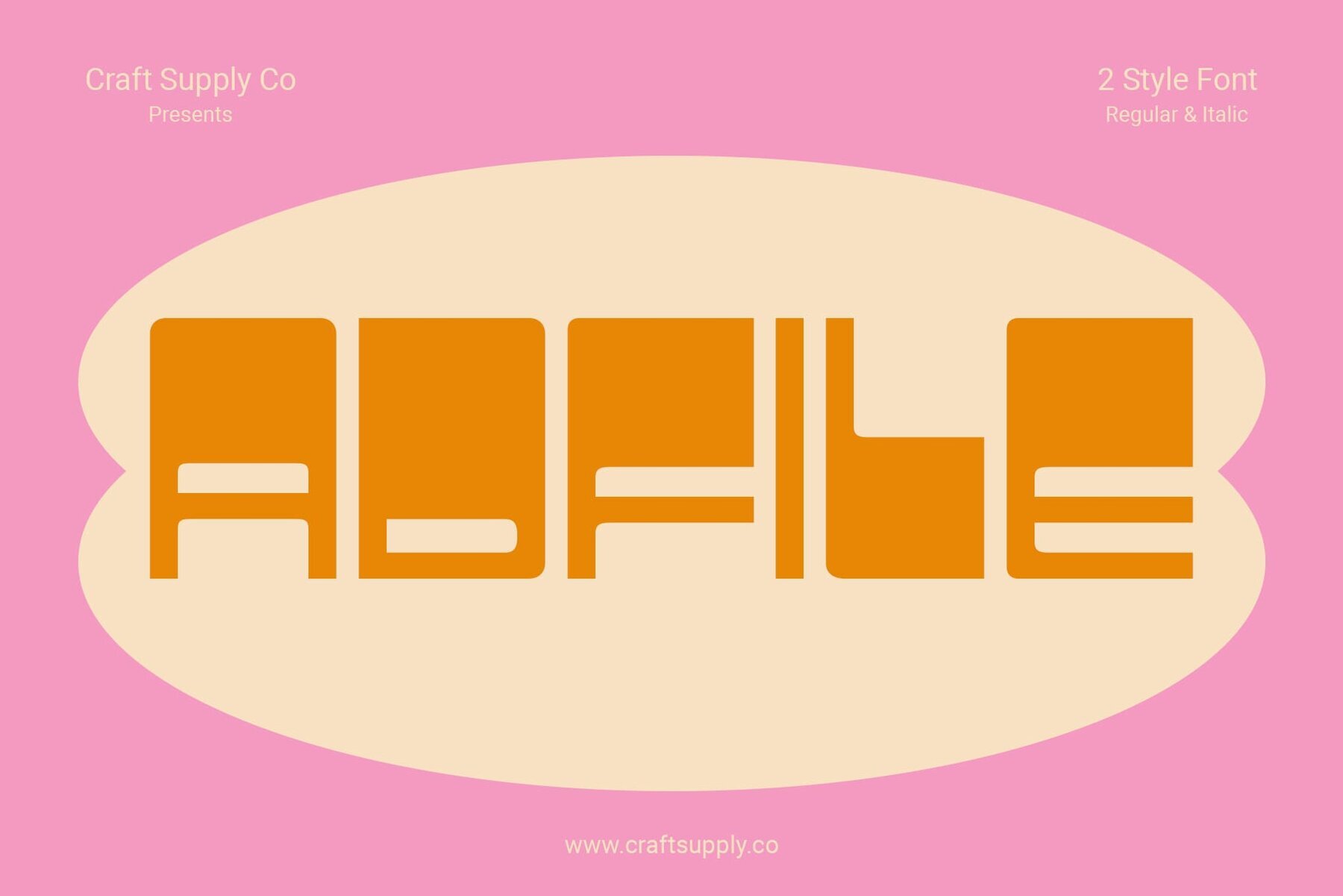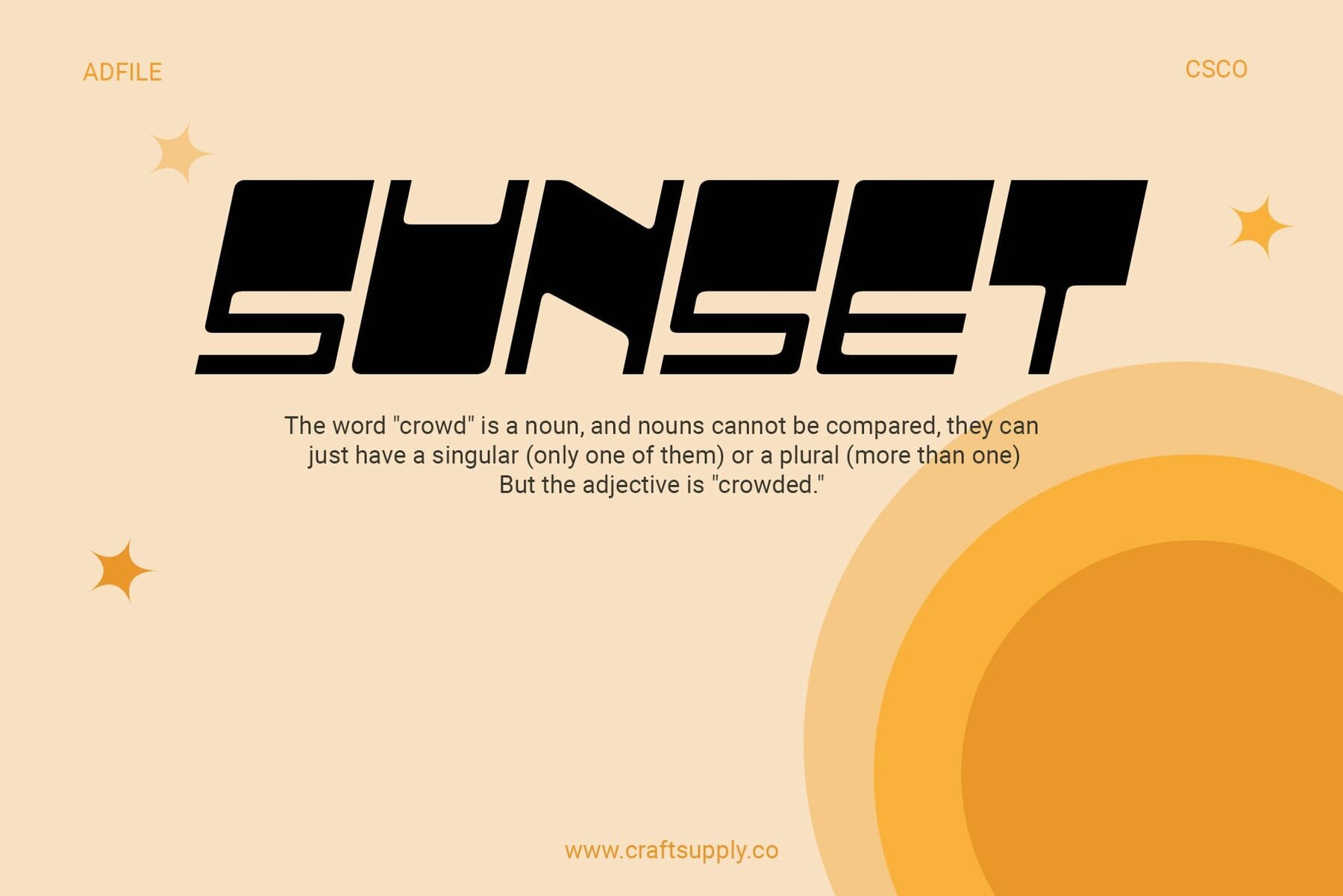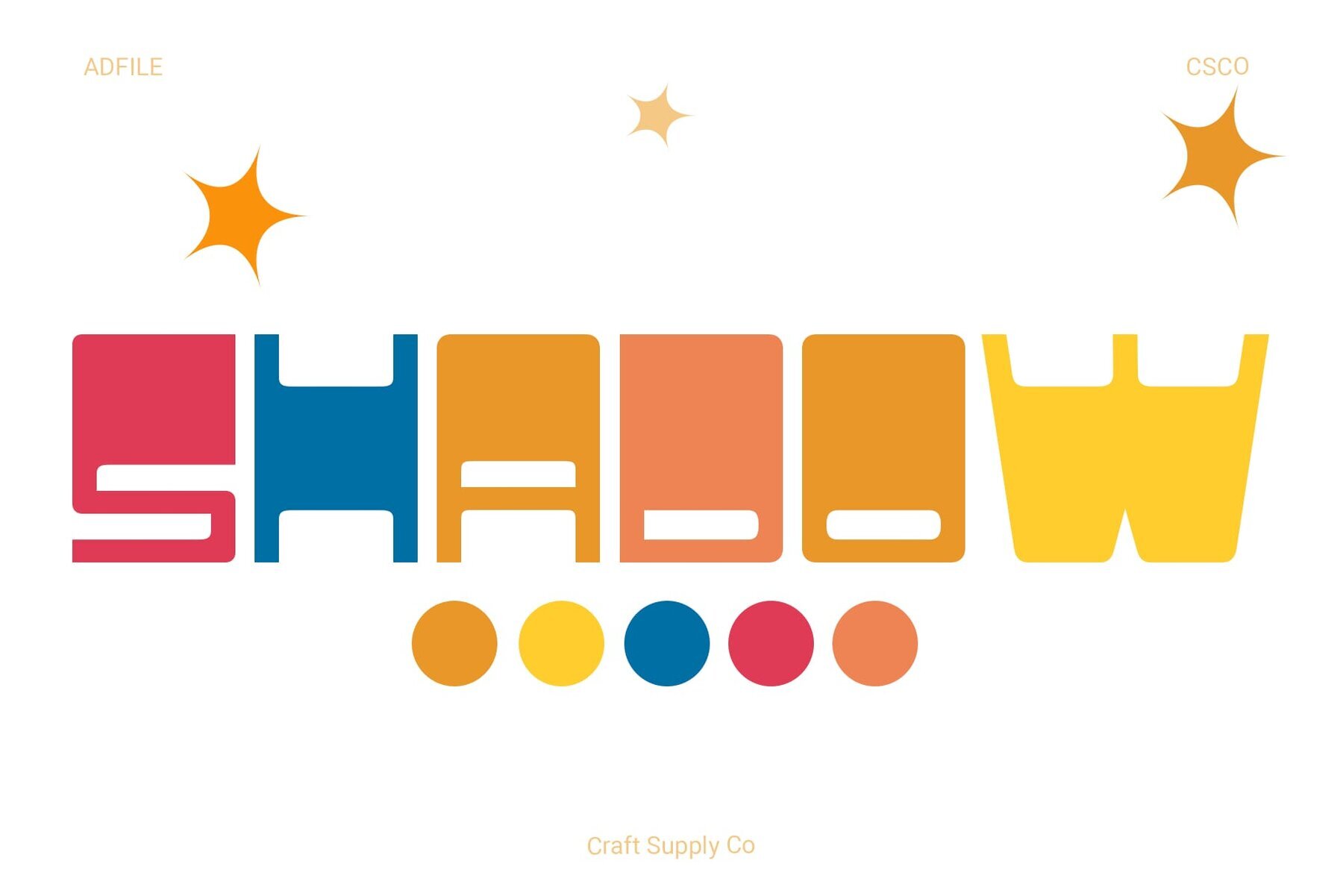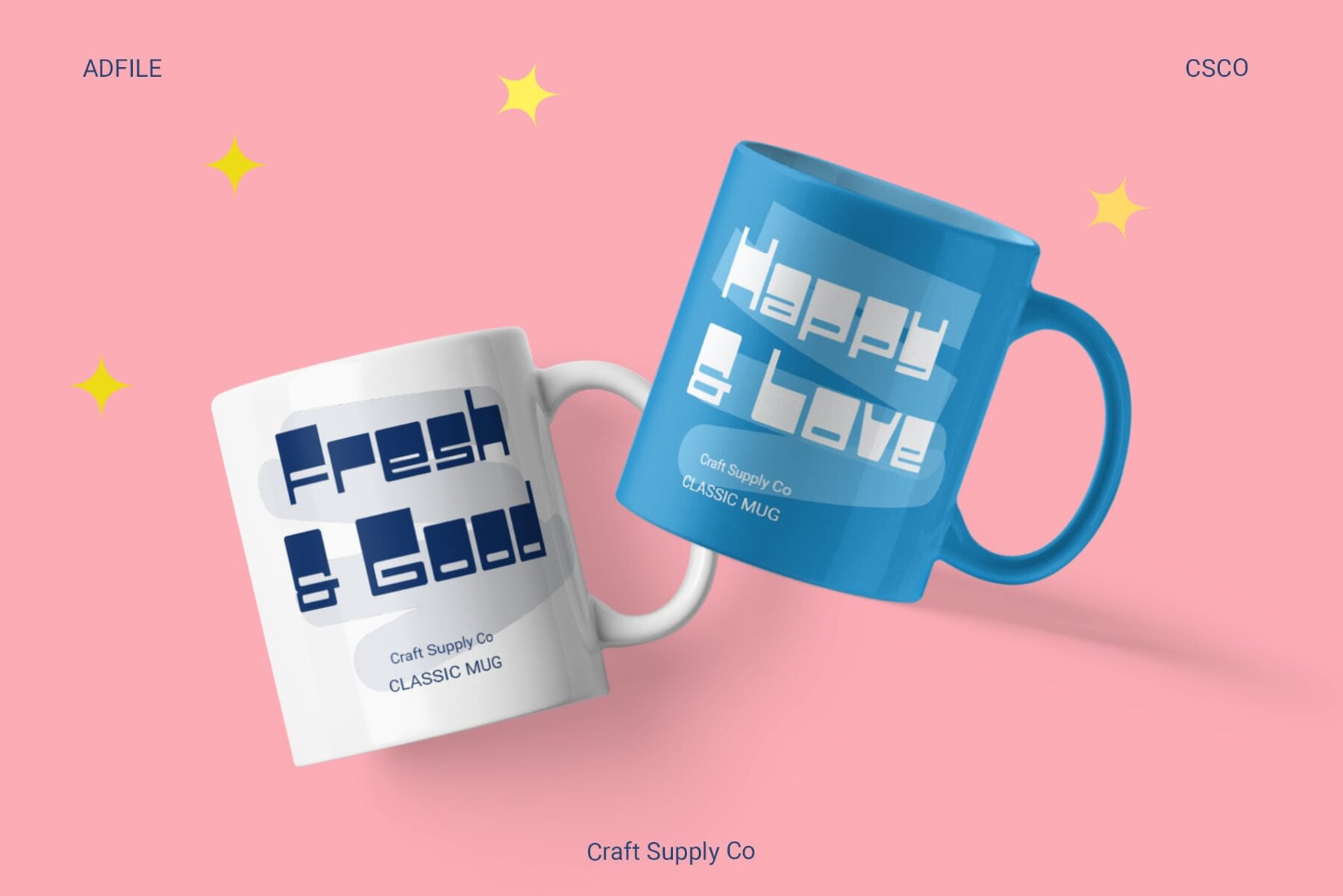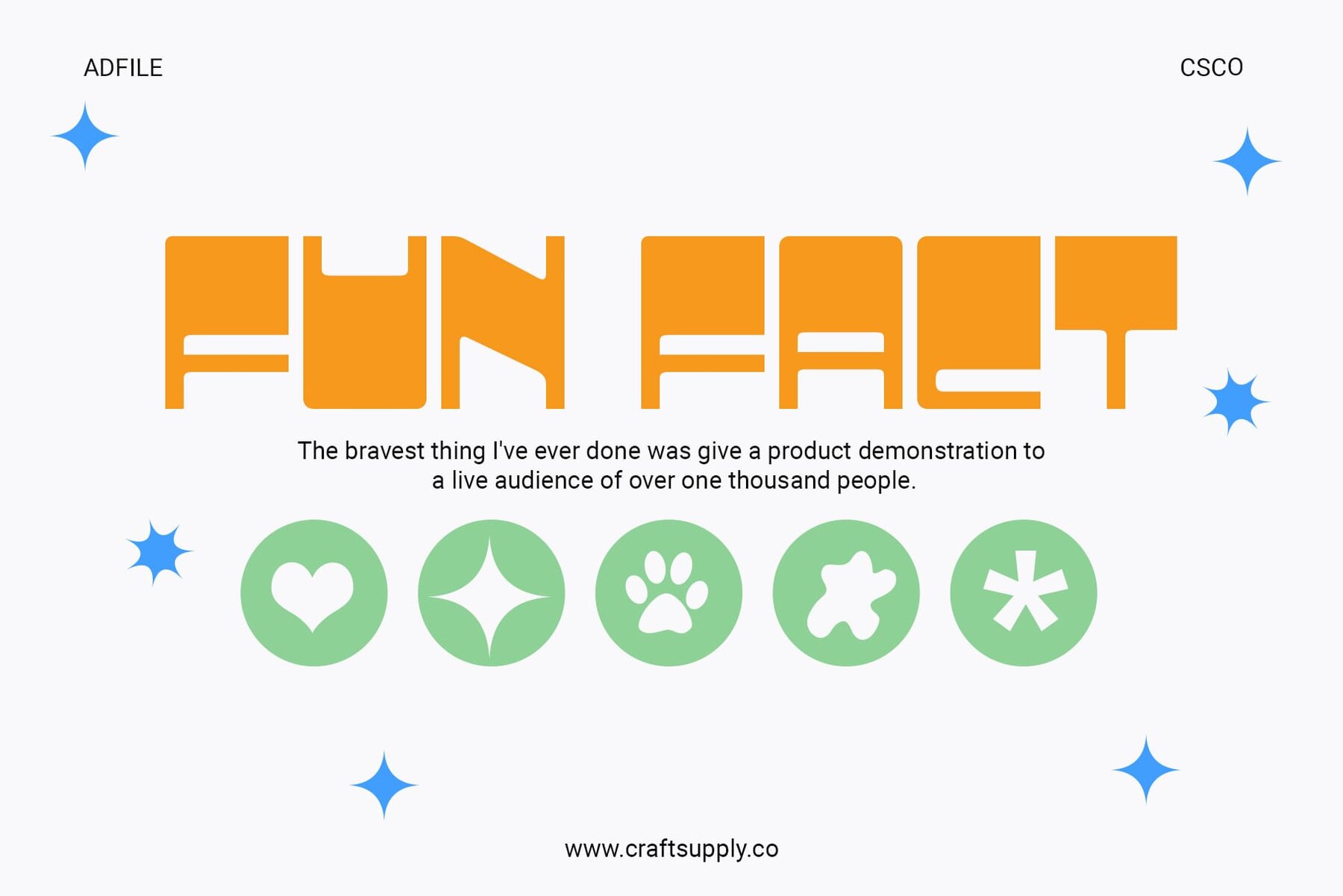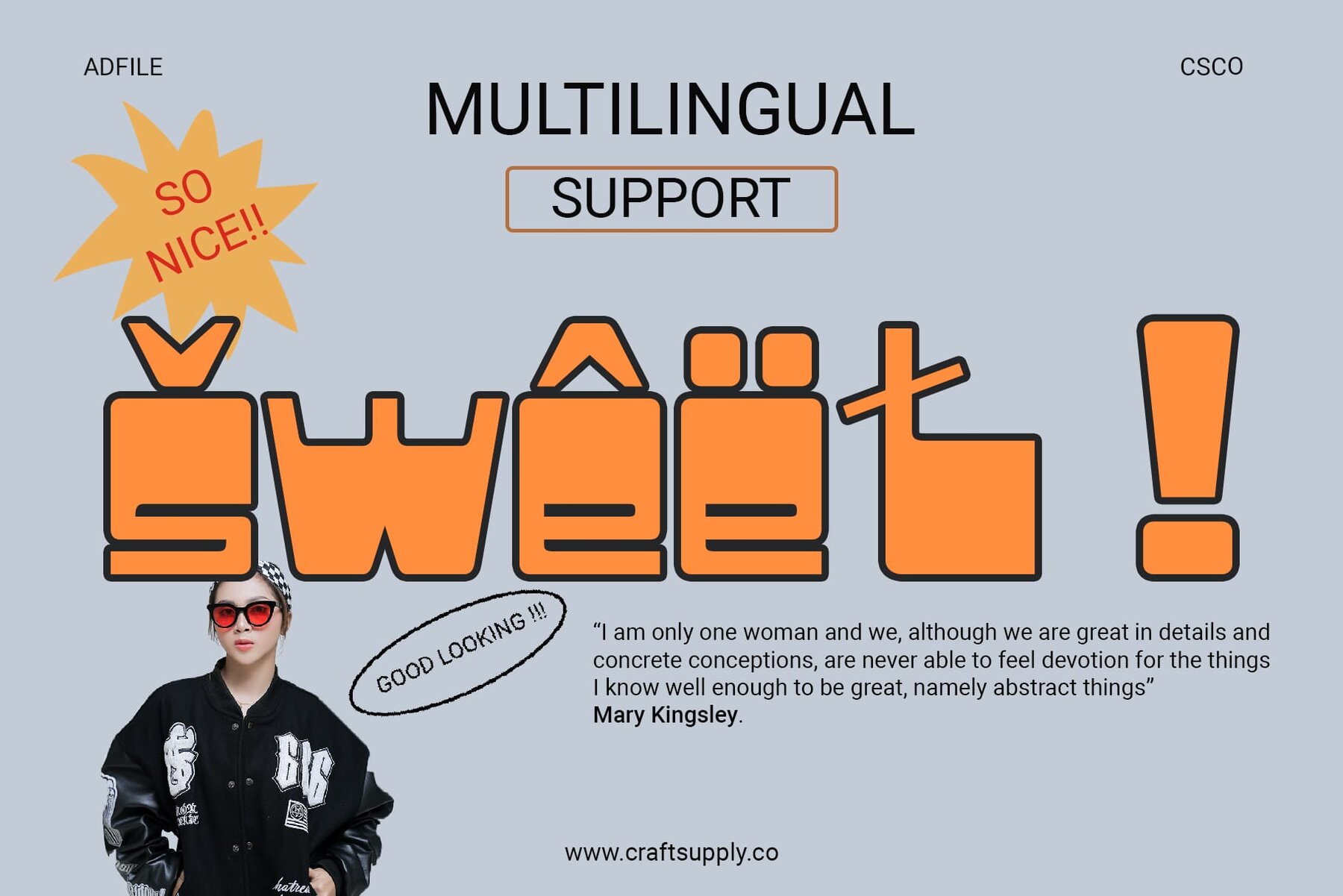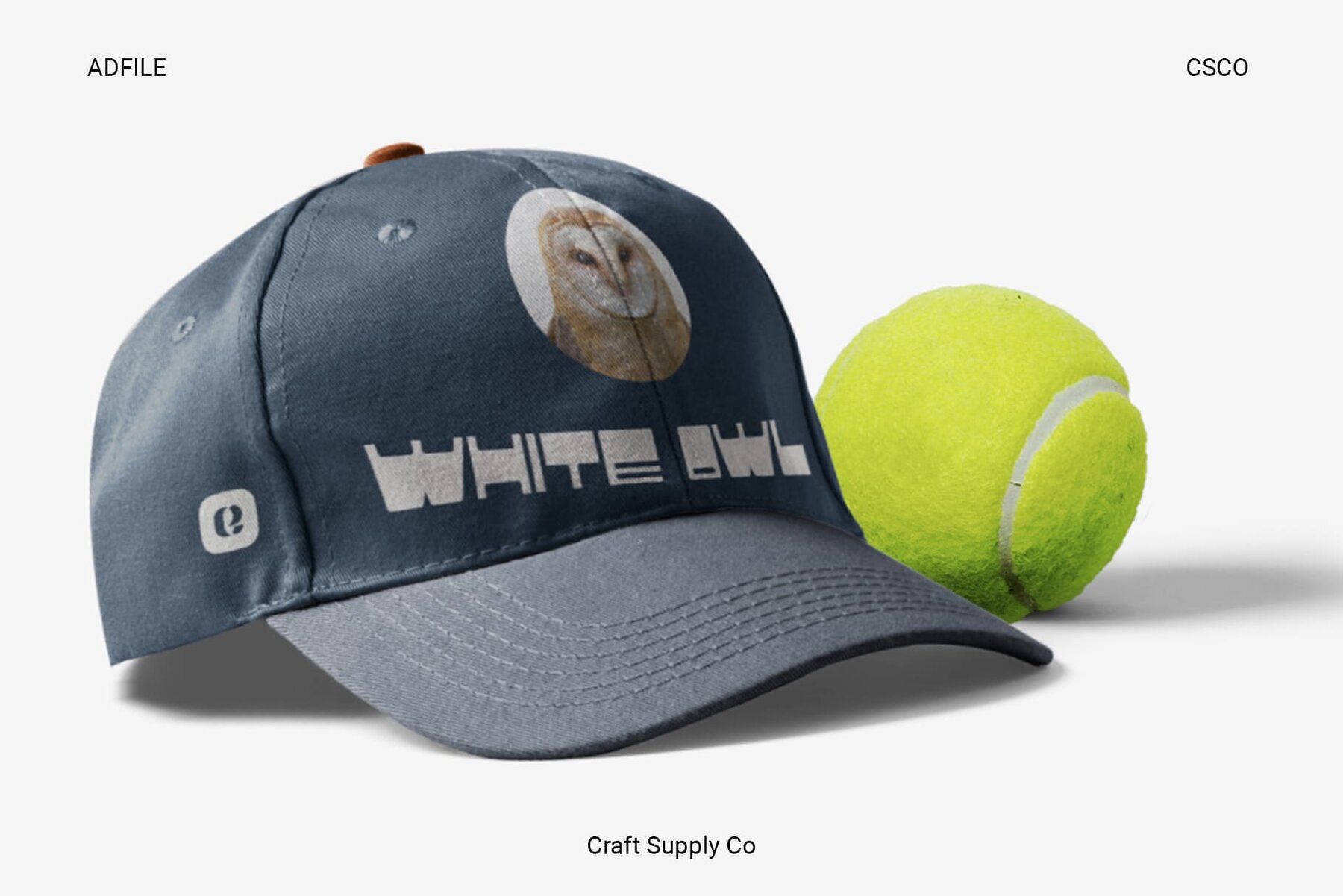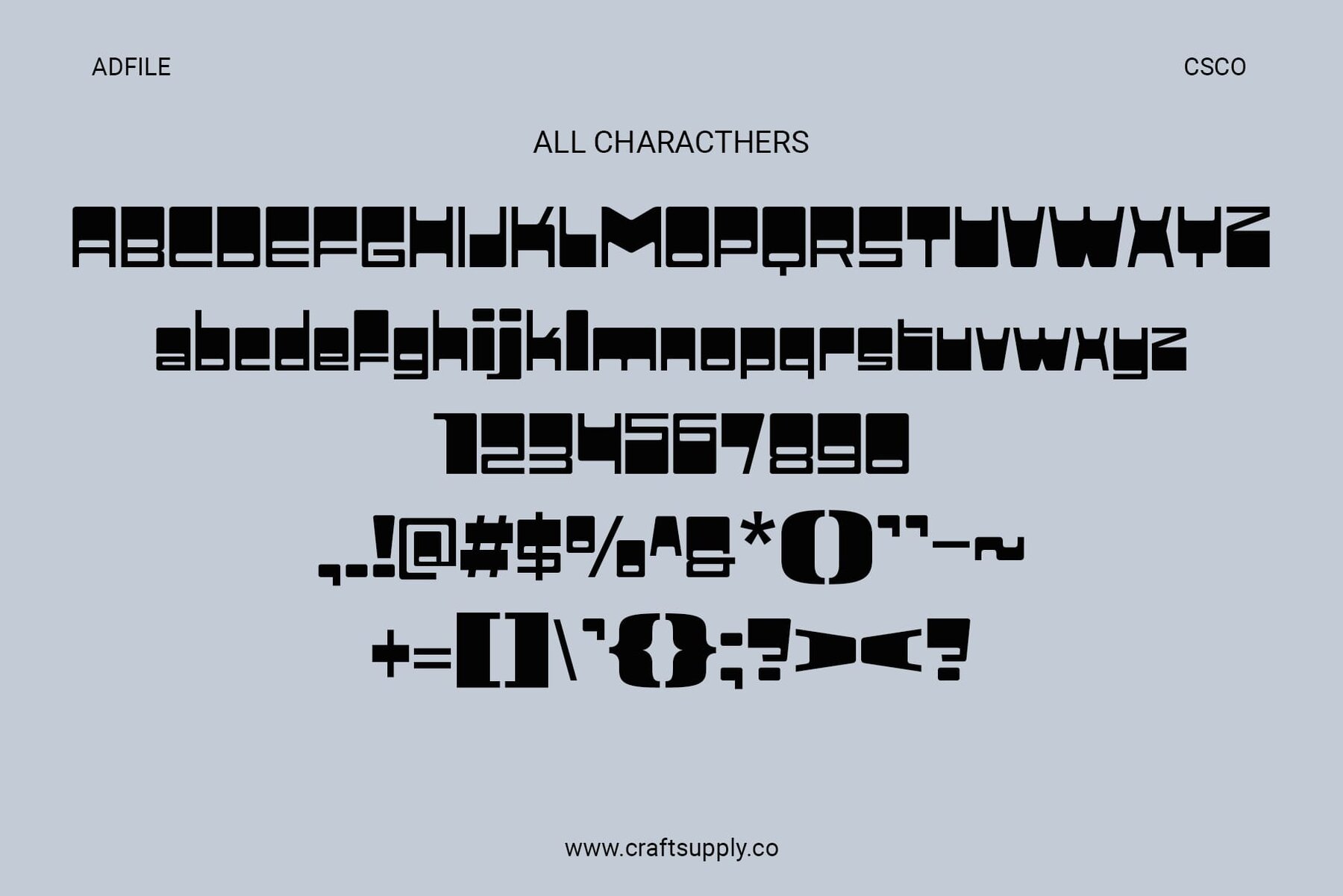
Adfile Font
Adfile is a font that redefines fun, infusing every character with playful energy, making it an ideal choice for vibrant display designs. Adfile breaks away from the ordinary. Its square design adds a touch of modernity, creating a dynamic visual impact that’s impossible to ignore. From posters to digital media, Adfile’s versatility shines. It ensures your design communicates energy and excitement across various platforms. This font is not just a typeface; it’s a catalyst for creativity. Let Adfile be the spark that transforms your displays into visual masterpieces. Adfile's funky charm and squared elegance make it the ultimate choice for those who seek a font that turns designs into a celebration of creativity and joy. This typeface can be used without specialized software. If you have any inquiries or need assistance, please feel free to contact us. We appreciate your support in enhancing your creative projects!Adfile: Elevating Display with Square Sans Serif
Squared Elegance
Versatile Display Marvel
Ignite Creativity with Adfile
Conclusion